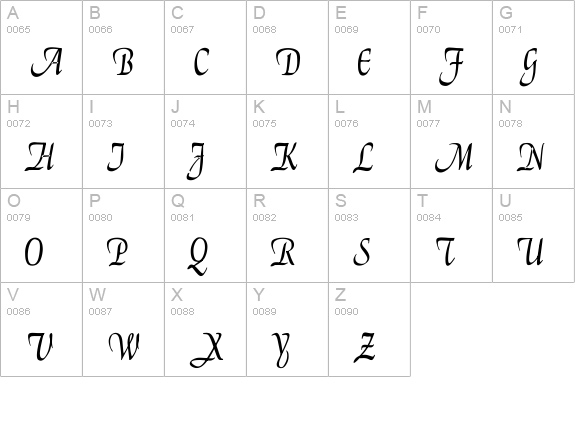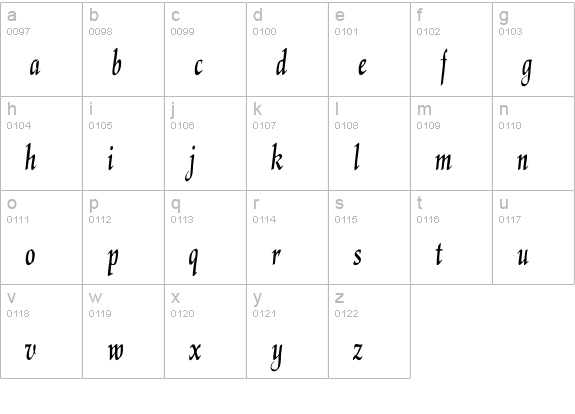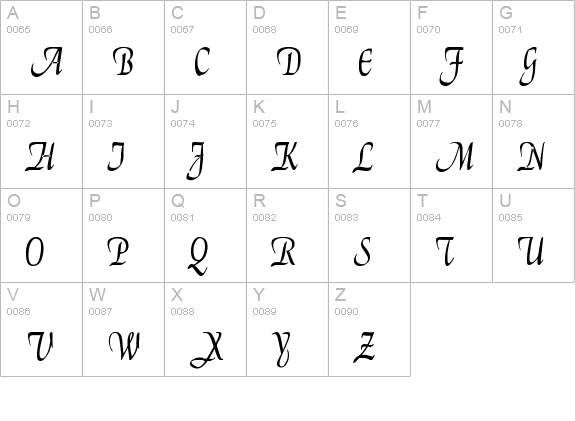
ElGar Cn Font Details
ElGar Cn font is a modern and stylish typeface that exudes elegance and sophistication. Its clean lines and tall, narrow letterforms give it a sleek and contemporary look, making it perfect for a wide range of design projects. This versatile font is ideal for use in branding, advertising, packaging, and more. The best part about ElGar Cn font is that it is completely free to download. You can easily access this beautiful typeface at FontsMarket.com, where you can enhance your creative projects without any cost. With its unique design and free availability, ElGar Cn font is a must-have addition to any designer's toolkit.